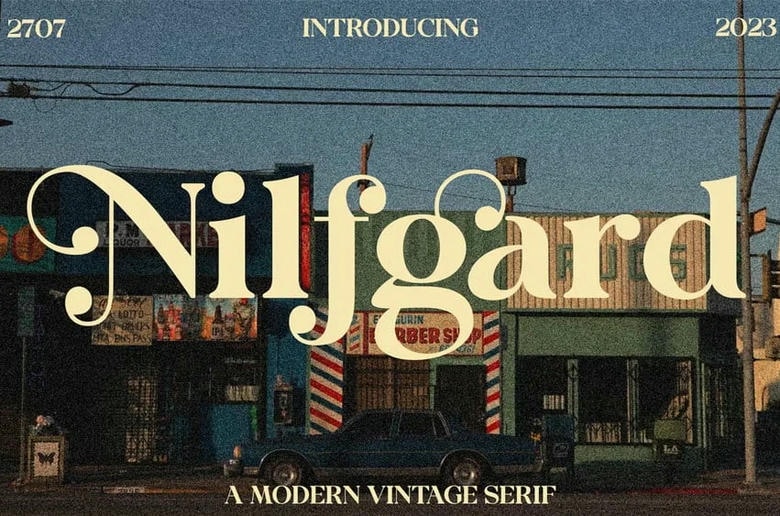
Nilfgard Font
Nilfgard is a modern, stylish font designed with care and smooth curves. It includes alternate characters and ligatures to help your work stand out. This font works well for branding, logos, greeting cards, title packaging, and more. Try Nilfgard to give your designs an extra touch.
Nilfgard Serif Font